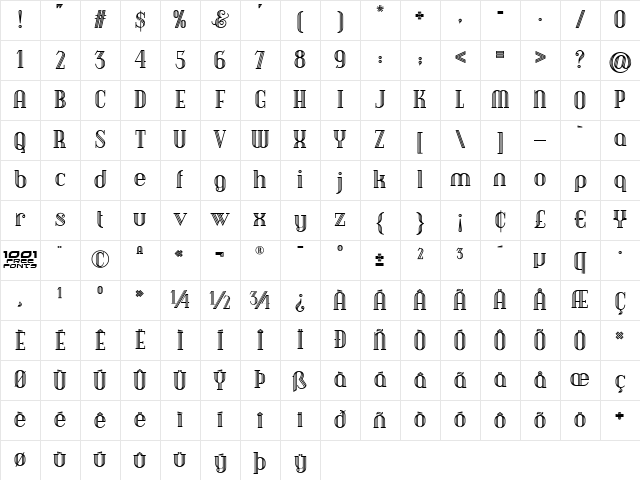
Debonair Inline NF Regular
Foundry: Nick's Fonts
Designer: Nick Curtis
Design Context for Debonair Inline NF
Debonair Inline NF is built around its visual character rather than neutral utility - its distinctive forms are designed to make an impression at display sizes.
Font Pairing: Pair with a clean neutral sans-serif for body copy to let Debonair Inline NF's character lead without overwhelming the composition.
Pro Tip: Use Debonair Inline NF exclusively at display sizes - it was designed to be seen, not read at length. Let a neutral companion handle body copy.